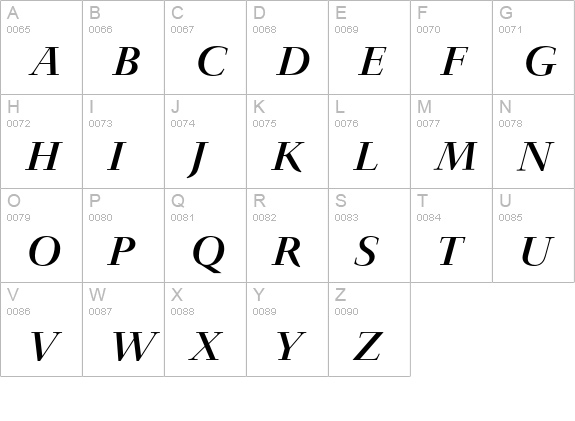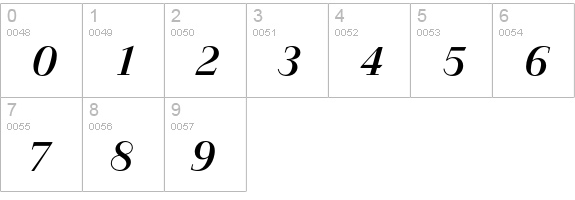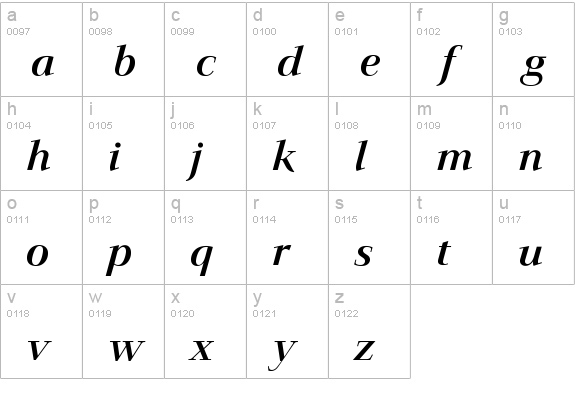
Jaeger-Antiqua Italic Font Details
Jaeger-Antiqua Italic is a distinctive, italic variant in the Jaeger typeface family \xE2\x80\x94 well suited to design and typography projects.
Jaeger-Antiqua Italic is a timeless and elegant font that exudes a sense of sophistication and class. With its graceful curves and delicate strokes, this typeface effortlessly captures the essence of antique design while adding a contemporary twist. The italic variant of Jaeger-Antiqua showcases a unique blend of old-world charm and modern versatility. Its slanted letterforms create a sense of dynamism and movement, making it perfect for projects that require a touch of elegance and flair. Whether used for invitations, branding, or editorial designs, Jaeger-Antiqua Italic adds a touch of refinement that instantly elevates any piece of work. One of the best aspects of Jaeger-Antiqua Italic is that it is freely available to download at FontsMarket.com. This means that designers, artists, and enthusiasts alike can easily access this beautiful font and incorporate it into their creative projects without any cost. Now, everyone can experience the timeless allure of Jaeger-Antiqua Italic and harness its expressive power to enhance their design endeavors. So, if you are seeking a font that effortlessly combines tradition and modernity, Jaeger-Antiqua Italic is the perfect choice. Download it for free at FontsMarket.com and let its graceful presence transform your designs into works of art.